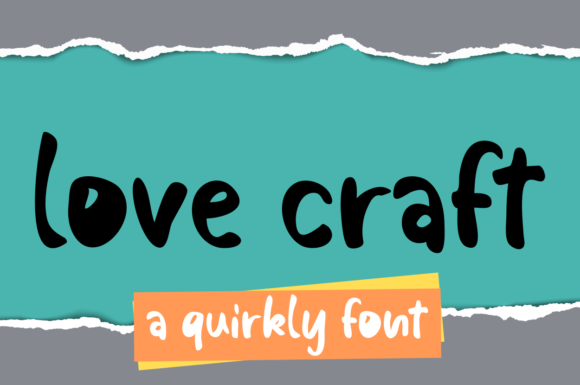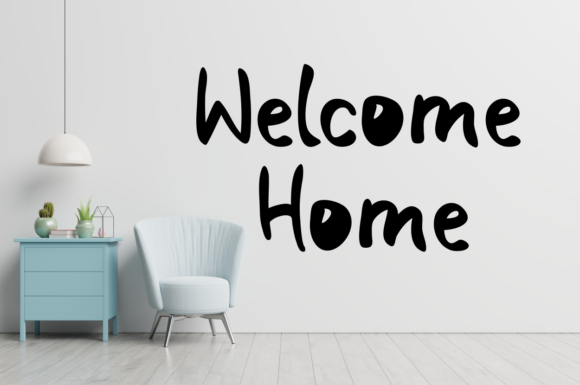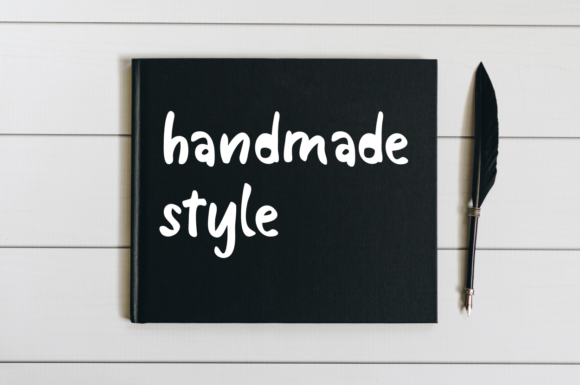
About Love Craft Font
Love Craft is a trendy and fun paint brushed handwritten font that brings a playful and artistic touch to your designs. With its unique and original look, this font is perfect for a wide range of crafty ideas, from letterheads and titles to stationery and more.
The brush strokes and handcrafted feel of Love Craft give it a lively and energetic appearance. The uneven edges and varying thicknesses of the letters create a sense of spontaneity and creativity, making it a great choice for designs that aim to stand out and make an impact.
Whether you’re working on a handmade card, a DIY project, or a creative blog, Love Craft adds a touch of personality and charm. Its trendy style and playful vibe make it suitable for designs targeting a younger audience or those looking for a more casual and informal aesthetic.
Love Craft is particularly well-suited for lettering projects. The paint brushed texture of the font creates the illusion of hand-painted letters, adding a sense of authenticity and craftsmanship. From posters and signage to quotes and social media graphics, Love Craft brings a touch of artistic flair to your typography.
When it comes to stationery, Love Craft can add a whimsical and handmade touch to invitations, thank-you cards, and other paper goods. Its fun and original look make it perfect for events and occasions that call for a more playful and informal vibe.
One of the advantages of Love Craft is its versatility. The font can be used as a headline or a decorative element, allowing you to experiment with different design compositions and layouts. Combine it with other fonts or pair it with illustrations and graphics to create visually engaging designs.
Overall, Love Craft is a trendy and fun paint brushed handwritten font that brings a unique and original look to your crafty designs. Its playful and artistic vibe makes it suitable for various projects, including letterheads, titles, stationery, and more. Embrace the creativity of Love Craft and let your designs shine with its lively and handcrafted charm.